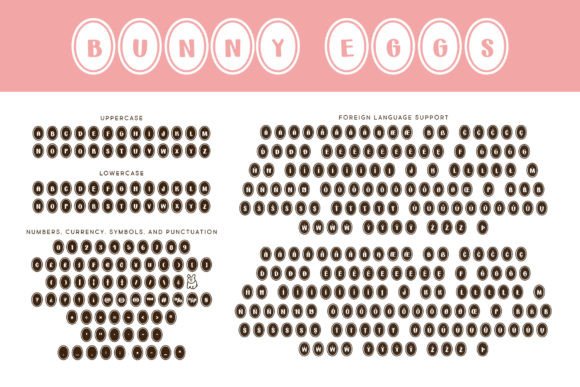
The Perfect Font for a Hoppy Easter
Do you remember that moment when you stumbled upon a quirky font that instantly sparked your creativity? For me, it was when I discovered the adorable Bunny Eggs Font. This fun font has been a game-changer in my design projects, especially during the Easter season.
With letters encased in egg-like ovals, the Bunny Eggs Font is perfect for creating cute Easter egg designs. But its value extends beyond the Easter holiday. This font is a valuable addition to any designer’s toolkit, offering a unique and playful way to add personality to your projects. Whether you’re working on a children’s book, a Easter-themed website, or a social media campaign, the Bunny Eggs Font is sure to bring a smile to your audience’s face.
Bunny Eggs Font Key Features
- Font Style: A playful, hand-drawn font with egg-shaped characters, reminiscent of Easter bunnies.
- Character Count: Contains a wide range of characters, including uppercase and lowercase letters, numbers, and punctuation marks.
- Unique Characteristics: Each character is designed with a unique egg-shaped outline, creating a distinctive and whimsical feel.
Bunny Eggs Font Review
I recently had the chance to work with the “Bunny Eggs Font” and I must say it’s a unique and eye-catching choice. ✨ The playful, whimsical design immediately caught my attention, and I can see it being a great fit for Easter-themed projects or anything that needs a touch of springtime magic.
One of the things that stands out about this font is its consistency across different weights and styles. ✨ The bold and italic versions are well-designed and maintain the same level of charm as the regular font. The font also supports a wide range of languages, which is a bonus for designers who need to work with diverse content.
While the “Bunny Eggs Font” has its strengths, there are a few limitations to consider. ⚠️ For one, the font may be too playful for some designs, and it may not be suitable for more serious or professional projects. Additionally, the font’s readability can be affected by the size and resolution of the text, which may require some extra attention from the designer.
- Limited suitability for formal or professional projects
- Readability can be affected by text size and resolution
Overall, the “Bunny Eggs Font” is a charming and versatile choice for designers looking to add some whimsy to their projects. While it may not be suitable for every project, it’s a great option for those who need a playful, eye-catching font. With a little creativity and attention to detail, designers can make the most of this font’s unique charms.
Some tips for getting the most out of the Bunny Eggs Font include:
– Using it for Easter-themed designs and invitations.
– Combining it with other playful fonts for a whimsical look.
– Using it for children’s party decorations and materials.
– Experimenting with different font sizes and styles to create a unique look.